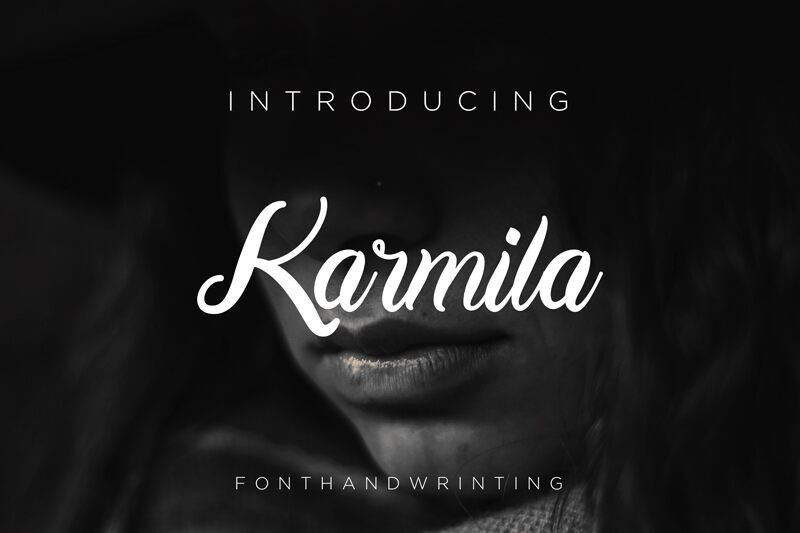
Karmila Script
Karmila Script, designed by Fiqiart, is a captivating calligraphy font that adds elegance and charm to any project. With its semi-light weight, this font exudes a delicate and graceful appeal. Perfect for wedding invitations, greeting cards, and feminine branding materials, Karmila Script effortlessly creates a romantic atmosphere. Its fluid strokes and intricate details make it an excellent choice for creating luxurious logos or stylish packaging designs. Whether you're designing for fashion, beauty, or lifestyle industries, Karmila Script will elevate your projects with its refined and sophisticated aesthetic.